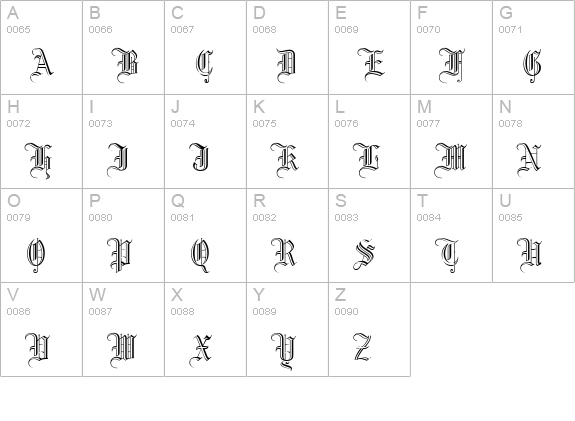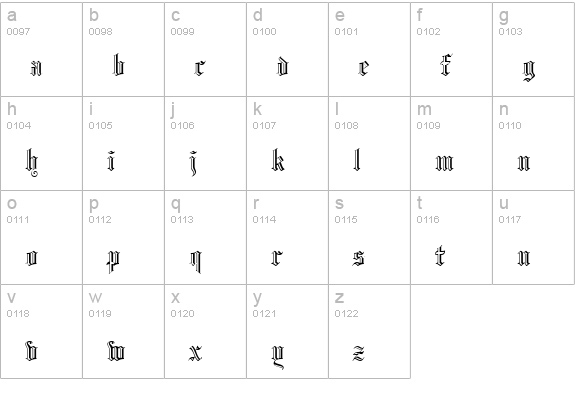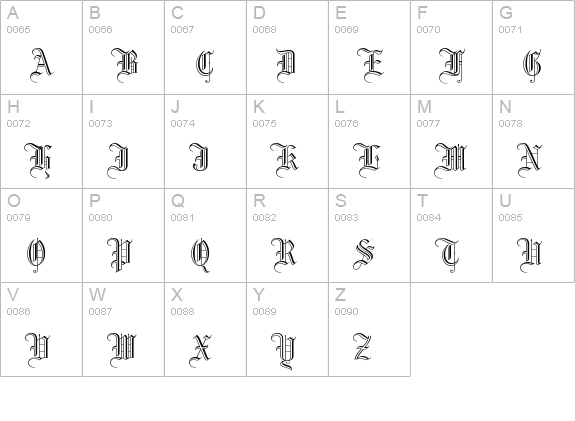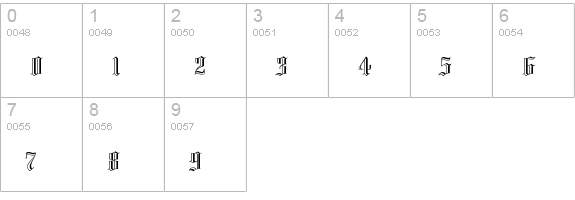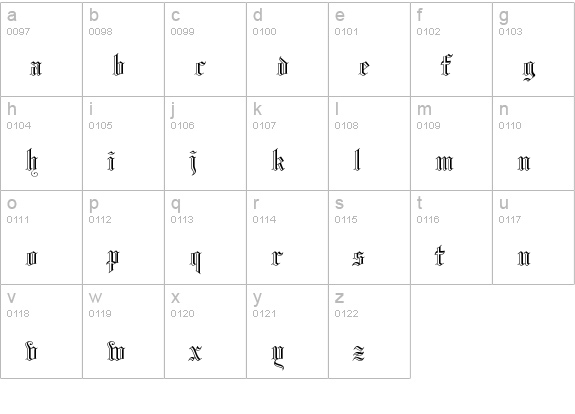
Manuscript Open Regular Font Details
Manuscript Open Regular is the standard, neutral variant in the Manuscript typeface family \xE2\x80\x94 well suited to general body text, paragraphs, and standard typographic work.
Manuscript Open Regular is a stunning font that seamlessly blends elegance with readability. Its graceful curves and flowing strokes give it a timeless appeal, making it perfect for a wide range of design projects. Whether you're working on a wedding invitation, a book cover, or a logo, this font will add a touch of sophistication and charm. One of the best things about Manuscript Open Regular is that it is freely available to download at FontsMarket.com. This means that you can enjoy the beauty and versatility of this font without any cost. It's a great option for designers and creatives who are looking for a high-quality font that won't break the bank. The versatility of Manuscript Open Regular is truly remarkable. It can be used for both headings and body text, making it ideal for creating a cohesive and visually appealing design. The characters are well-balanced and legible, ensuring that your message will be understood with ease. Whether you're a professional designer or a hobbyist, Manuscript Open Regular is a must-have font in your collection. Its timeless beauty and free availability make it an irresistible choice for any design project. So why wait? Download Manuscript Open Regular today from FontsMarket.com and start adding a touch of elegance to your designs.